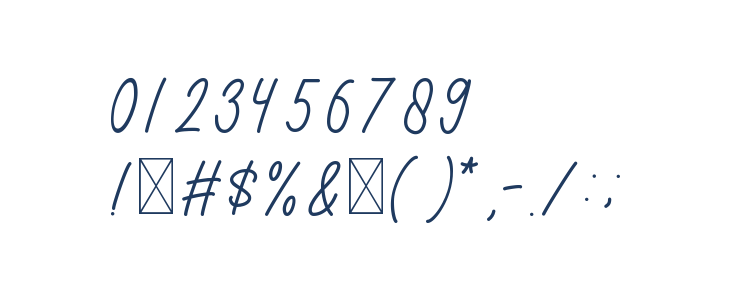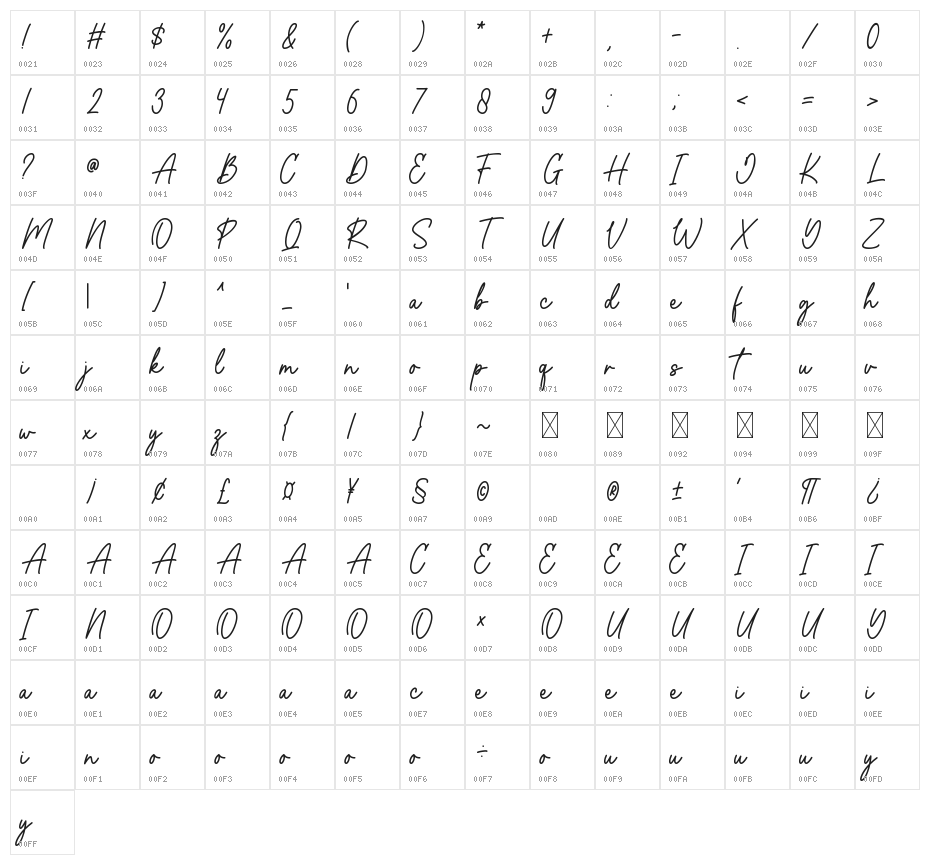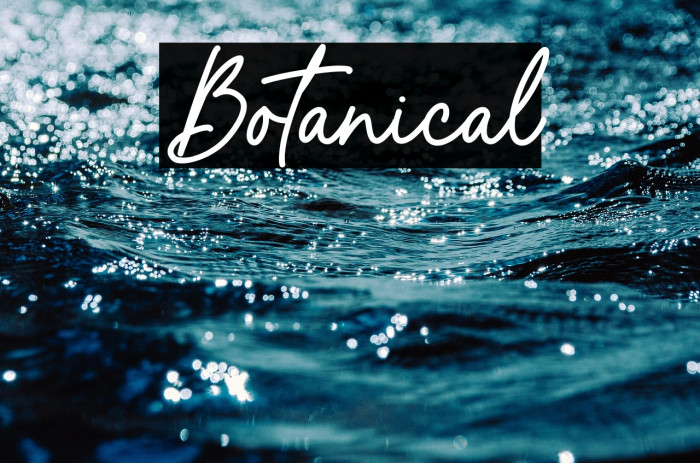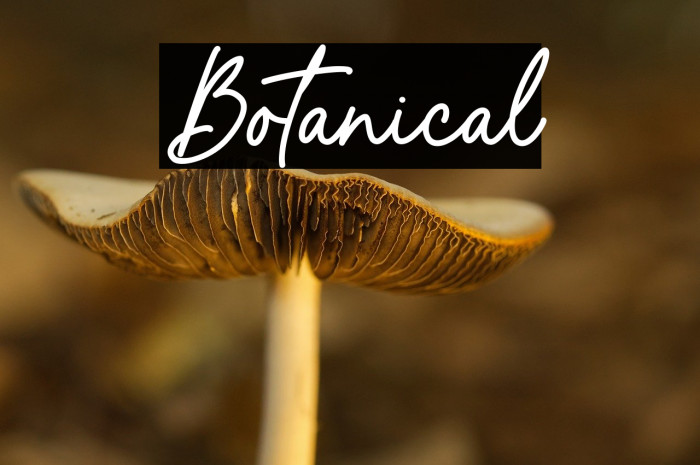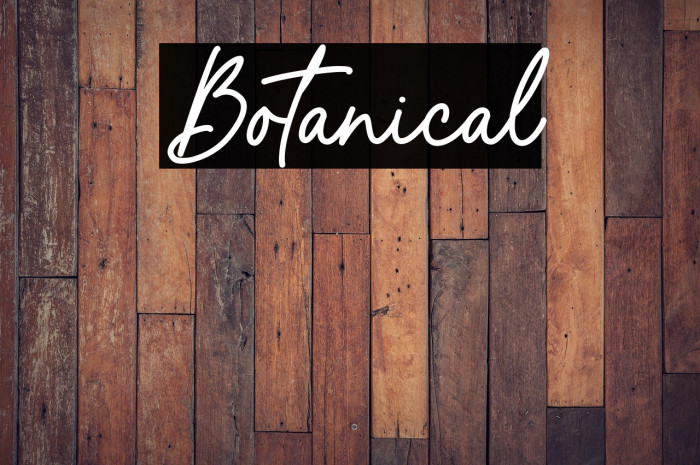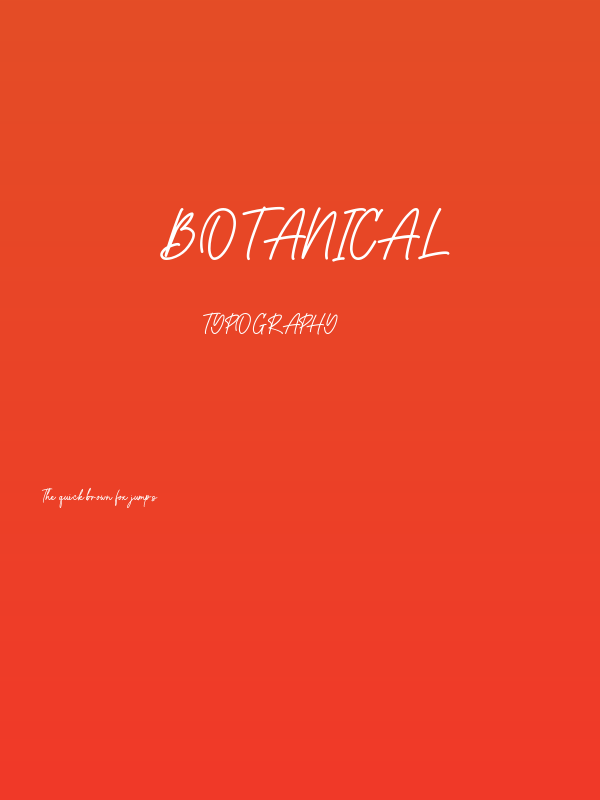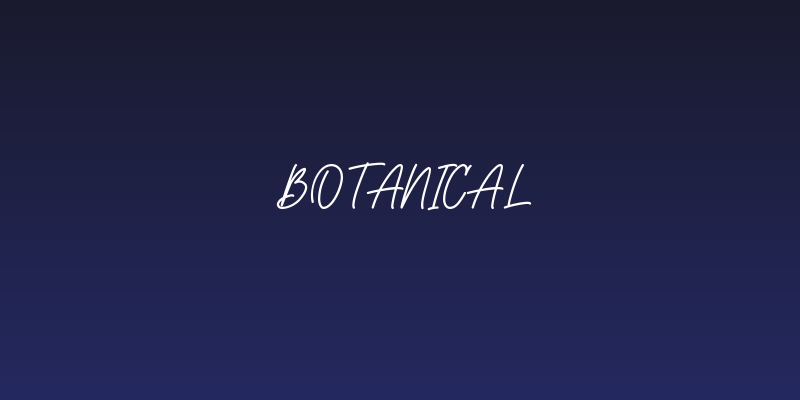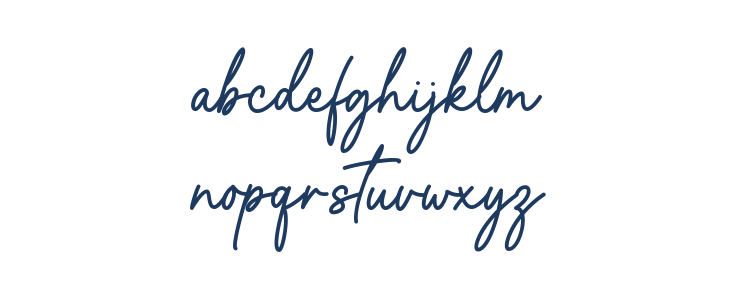
Botanical Font
Botanical Description
This font features a fluid, handwritten style with a modern and elegant touch. The uppercase letters are tall and slightly slanted, giving a sense of movement and grace. The lowercase letters maintain a consistent flow, with smooth curves and a natural, organic feel. Numbers are clear and legible, matching the overall aesthetic of the letters. Special characters are thoughtfully designed, integrating seamlessly with the rest of the font. The strokes are consistent in thickness, providing a balanced appearance that is both stylish and readable.
| Use Case | Logos, Headlines, Invitations |
| Proposed Projects | Ideal for wedding invitations, personal branding, greeting cards, and social media graphics. |